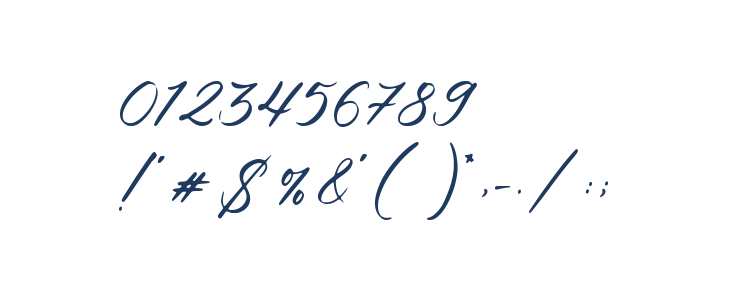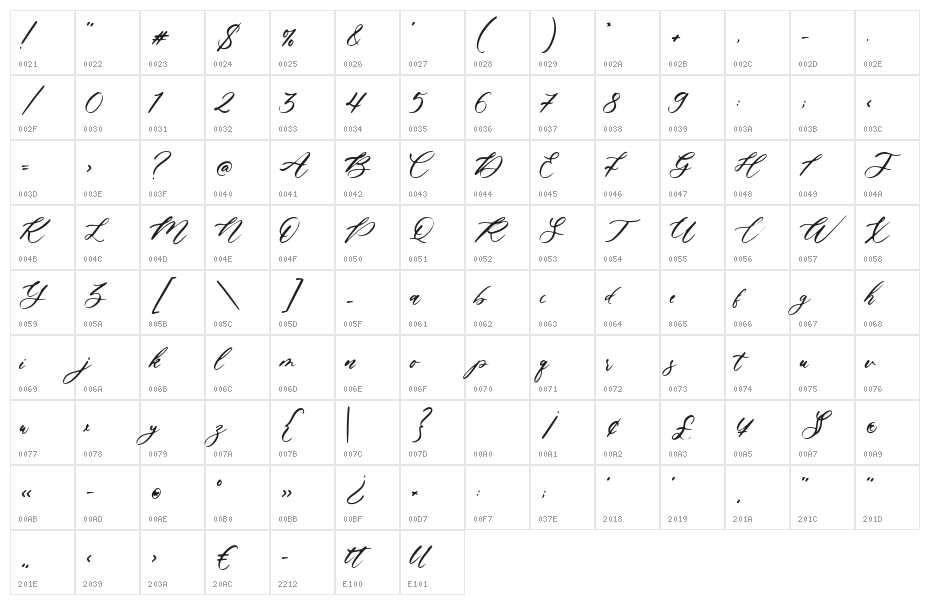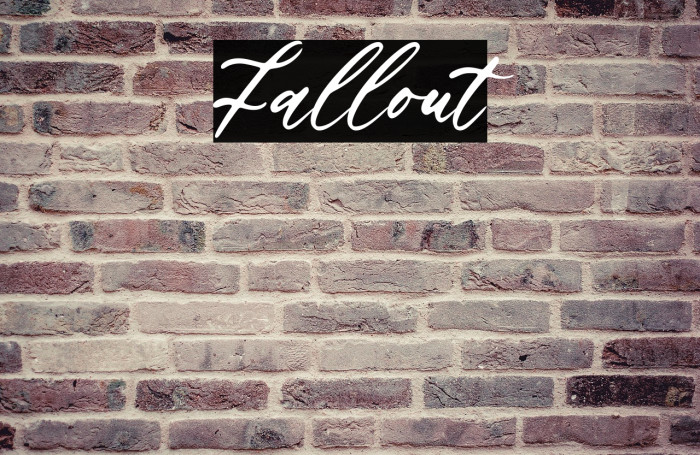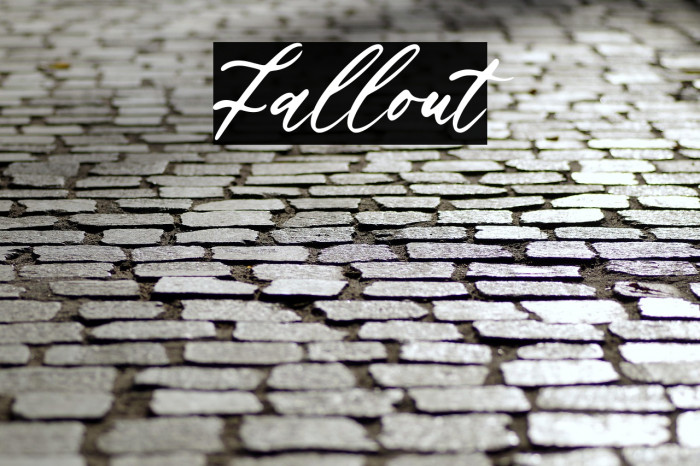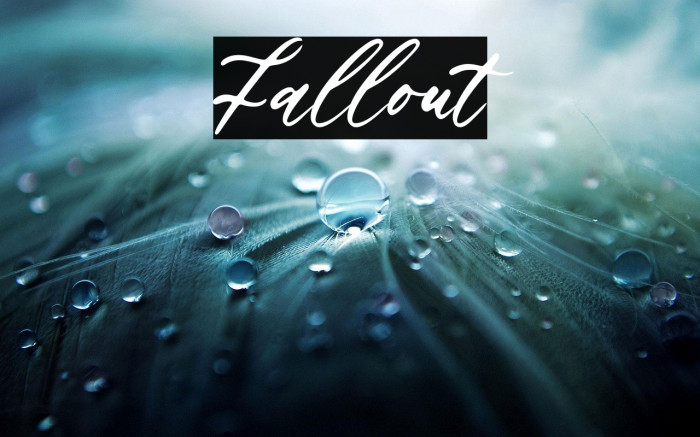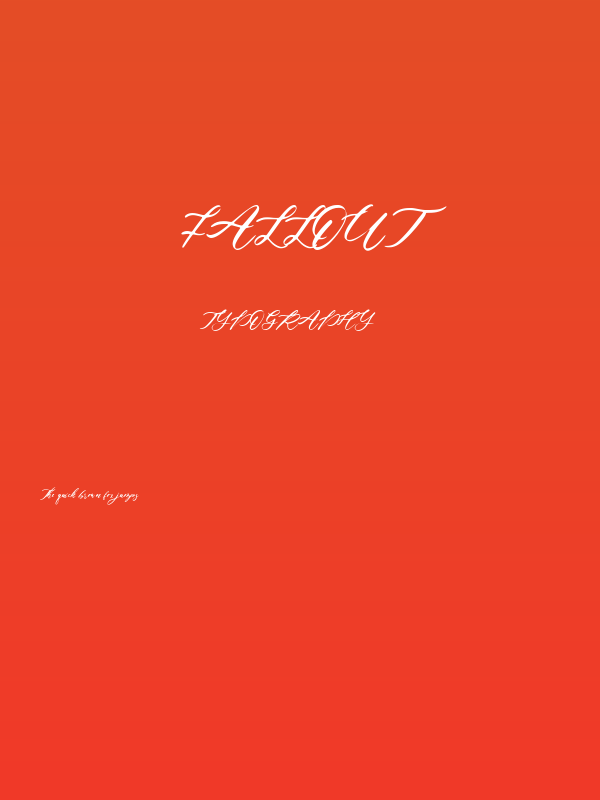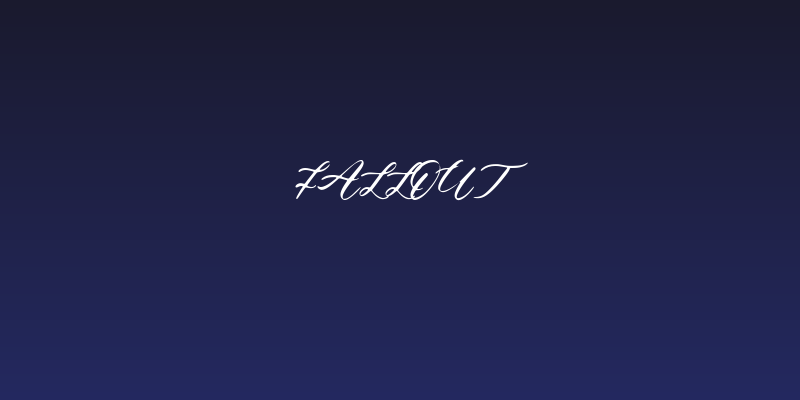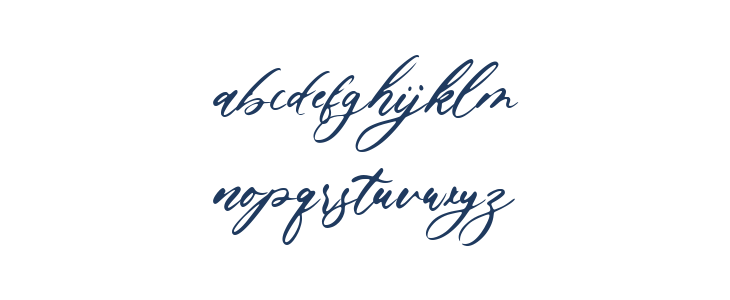
Fallout Font
Fallout Description
This elegant script font features a flowing, cursive style with smooth, connected strokes that mimic the fluidity of handwriting. The uppercase letters exhibit a graceful flair, with sweeping ascenders and descenders that add a touch of sophistication. The lowercase letters maintain a consistent rhythm, enhancing readability while preserving the font's artistic charm. Numbers and special characters are designed with the same attention to detail, ensuring a cohesive look across all text elements. This font is perfect for projects that require a personal, elegant touch.
| Overall Style | Elegant |
| Use Case | Logos, Invitations, Personal stationery |
| Proposed Projects | Ideal for wedding invitations, greeting cards, elegant branding, and personal stationery. |